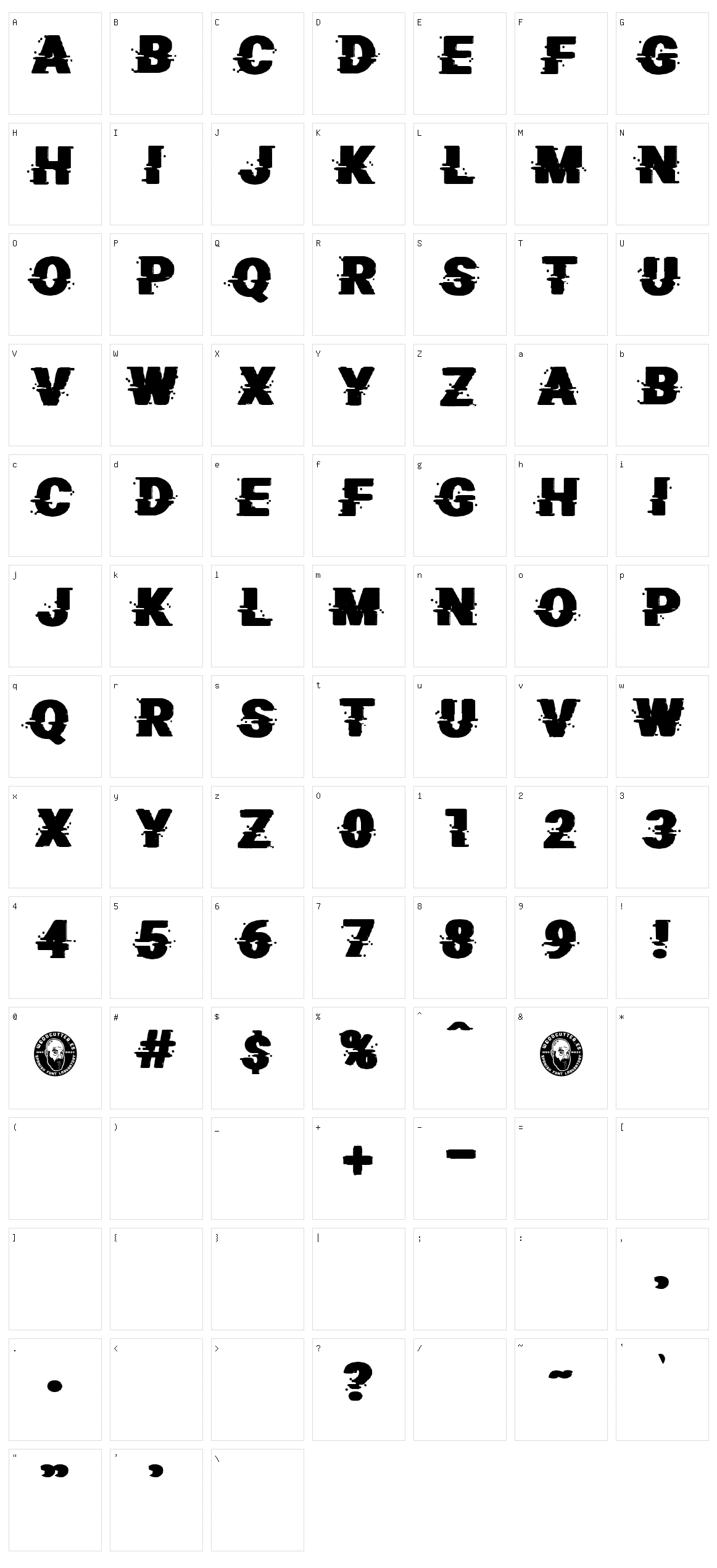
The free font Anonymous State is carefully designed by Woodcutter, showcasing a thoughtful balance of creativity and usability and falls under the Distorted font style. When you download the ZIP file, it contains only 150.49 KB of font files, making it lightweight and quick to download. Please review the license details below to understand permitted usage and distribution rights. If license information is not available, we recommend using this font for personal projects only or contacting the author directly for commercial usage permissions.